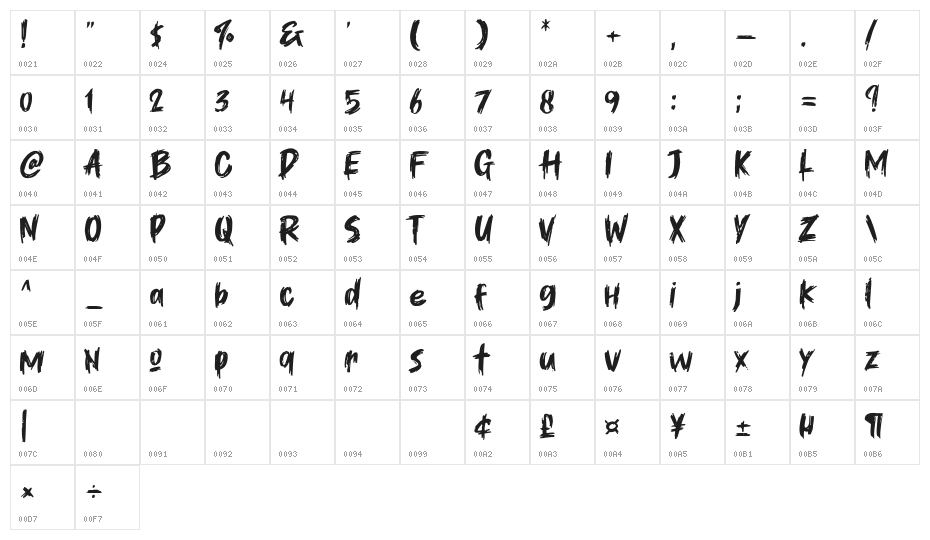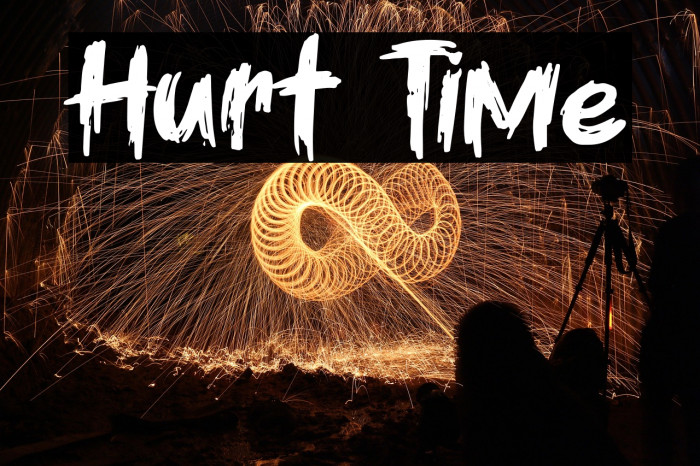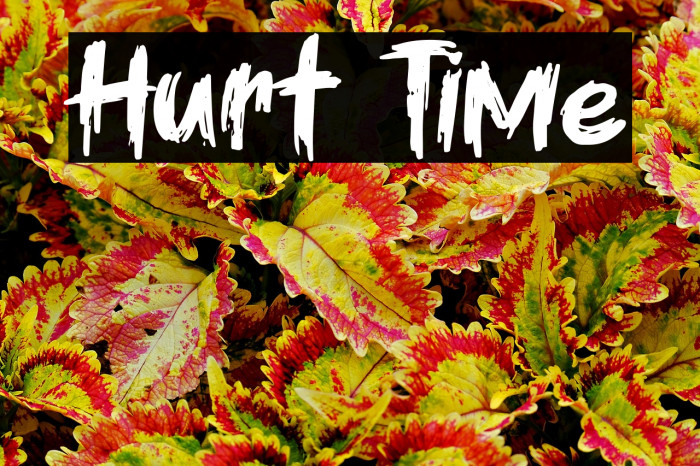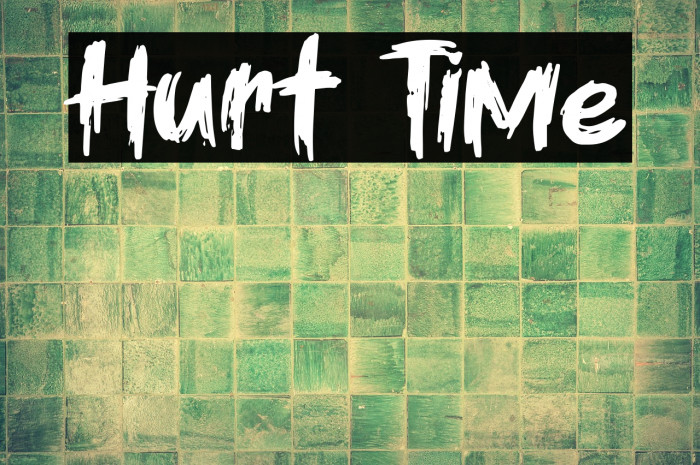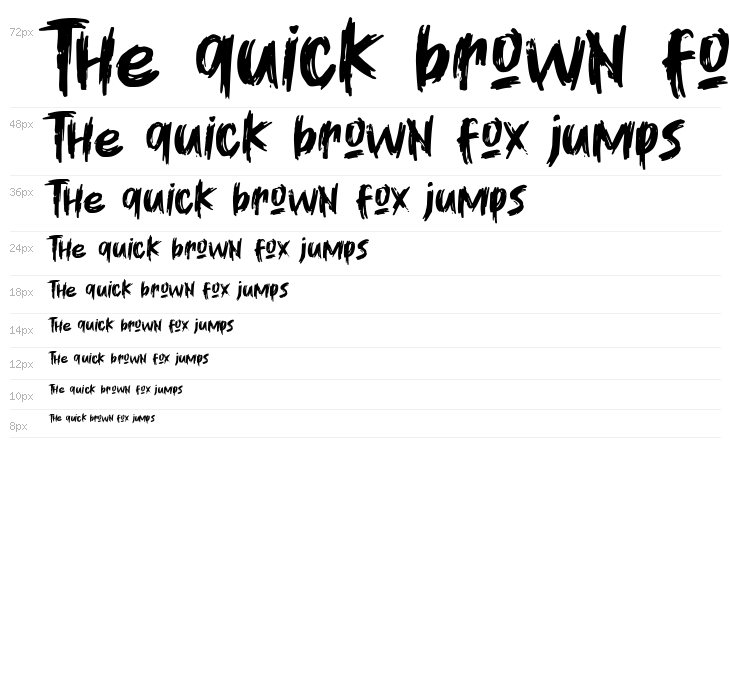
Hurt Time Font
Hurt Time Description
This font features a bold and dynamic brushstroke style, characterized by its rough, textured appearance. The letters are irregular and energetic, conveying a sense of movement and intensity. The uppercase and lowercase characters maintain a consistent style, with jagged edges and varying stroke widths that add to its raw and expressive nature. The numerals and special characters follow the same aesthetic, ensuring a cohesive look across all elements. This font is ideal for projects that require a bold statement and a touch of artistic flair.
| Overall Style | Modern, Artistic |
| Proposed Projects | Perfect for album covers, posters, streetwear branding, and any project needing a bold, artistic touch. |